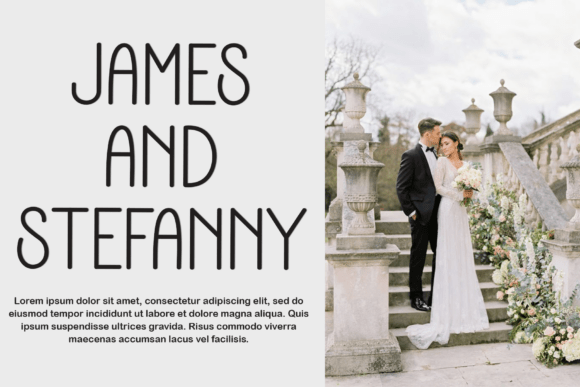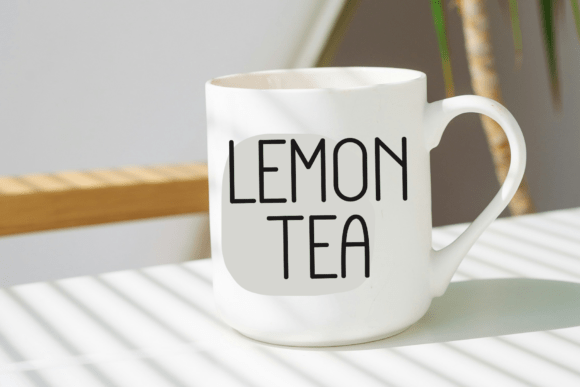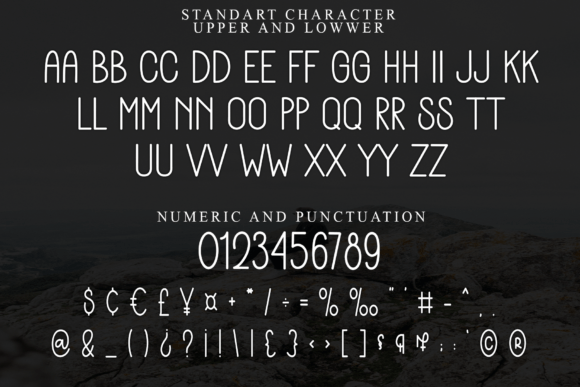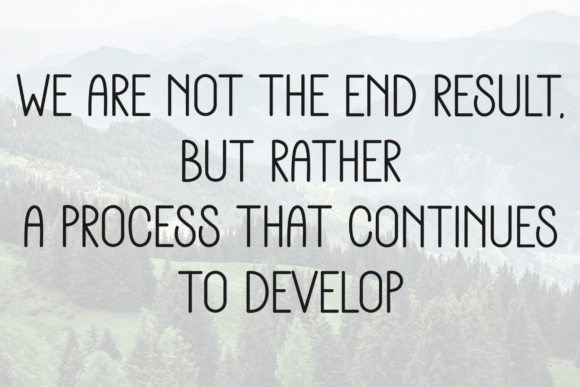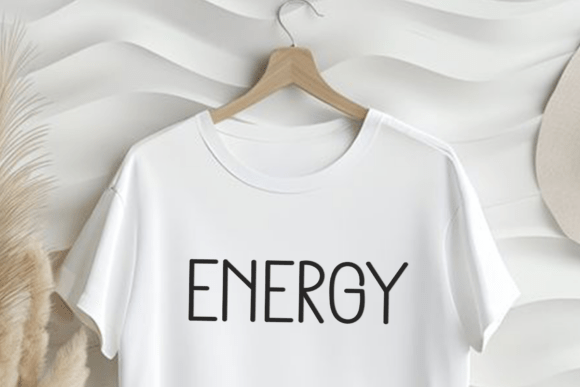
Getting into the Holiday Spirit with Drawing Sketch Font
The holiday season is upon us, and what better way to get into the spirit than with a festive and merry typeface? Look no further than the Drawing Sketch Font, a decorative font that captures the essence of the holiday season with its whimsical flair and enchanting charm. In this article, we’ll dive into the world of Drawing Sketch Font and explore how it can add a touch of magic to your designs.
Drawing Sketch Font is a beautifully crafted typeface that embodies the spirit of the holiday season. Its decorative elements and whimsical flair make it perfect for adding a touch of enchantment to your designs. Whether you’re creating greeting cards, gift tags, or holiday-themed projects, this font is sure to bring a cheerful and nostalgic ambiance to your words.
Drawing Sketch Font is a versatile typeface that can be used in a variety of design projects. Whether you’re a professional designer or a crafter looking to add a personal touch to your holiday gifts, this font is perfect for you. With its festive and merry vibe, it’s ideal for creating:
• Greeting cards for friends and family
• Gift tags for presents
• Holiday-themed projects, such as party invitations and decorations
One of the best things about Drawing Sketch Font is that it’s PUA encoded, which means you can access all of the amazing glyphs and ligatures with ease. PUA encoding allows you to access the font’s built-in features, such as:
• Swashes and flourishes
• Ligatures and glyphs
• Alternate characters and ornaments
Bringing Your Typography to Life
With Drawing Sketch Font, you can bring your typography to life with the magic of Beautiful Font. This font is designed to add a touch of enchantment to your designs, and with its whimsical flair and decorative elements, it’s sure to make your words shine. Whether you’re creating a festive holiday design or a beautiful typographic piece, Drawing Sketch Font is the perfect choice.
Tips and Tricks for Using Drawing Sketch Font
Here are a few tips and tricks for getting the most out of Drawing Sketch Font:
• Experiment with different font sizes and colors to create a unique look
• Use the font’s built-in features, such as swashes and ligatures, to add visual interest
• Combine Drawing Sketch Font with other fonts to create a beautiful typographic mix
• Don’t be afraid to get creative and try new things – that’s what the holiday season is all about!
In conclusion, Drawing Sketch Font is a festive and merry typeface that’s perfect for adding a touch of enchantment to your designs. With its decorative elements and whimsical flair, it’s ideal for creating holiday-themed projects, greeting cards, gift tags, and more. Whether you’re a professional designer or a crafter looking to add a personal touch to your holiday gifts, this font is sure to bring a cheerful and nostalgic ambiance to your words. So why wait? Get into the holiday spirit with Drawing Sketch Font and let your typography shine with the magic of Beautiful Font!